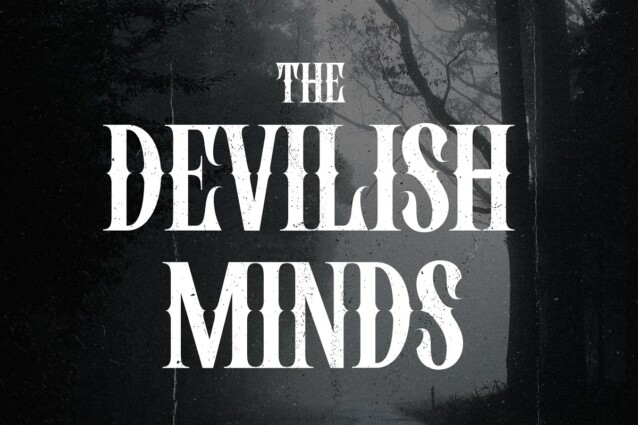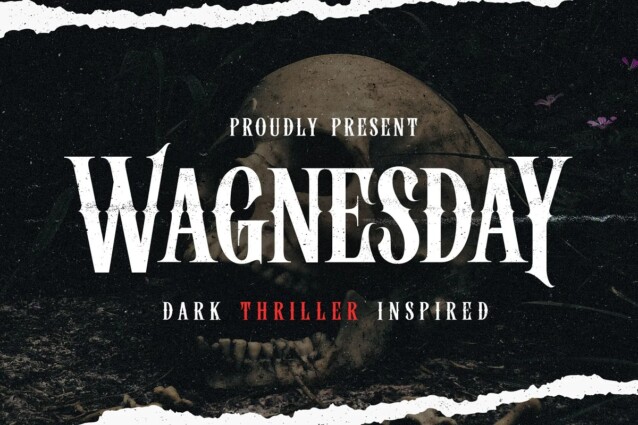
Wagnesday Font
Wagnesday Font is a condensed serif with horror & creepy vibes! Inspired by thriller movies and designed with an elegant touch of horror, and thrilling. This all-caps font adds a dark vibe to your designs, making them more attention-grabbing.
With its bold and sharp font style, Wagnesday can be applied to various themes, including underground, gothic, sports, and even vintage designs. Wagnesday becomes even more versatile with the addition of stylistic alternates that you can mix and match to make your design stand out even more.